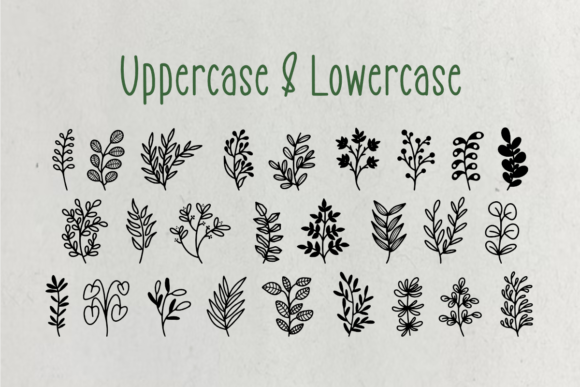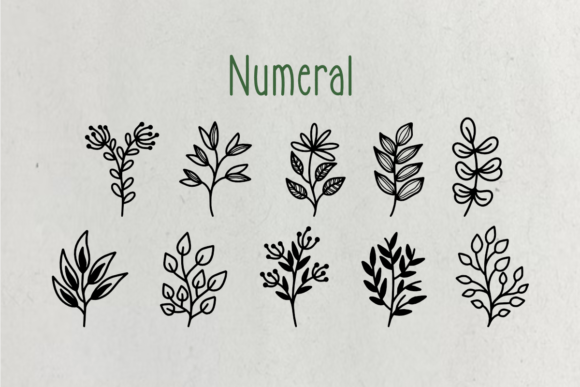
NATURENA FONT SPECIMEN
Naturena is a stunning and versatile botanical sketch dingbats font that will bring the beauty of nature to your creative projects. With its collection of intricate botanical illustrations, this font is perfect for adding a touch of elegance and natural charm to a wide range of designs.
When it comes to social media posts, Naturena can elevate your visuals and make them more eye-catching. Use the botanical illustrations as decorative elements, borders, or focal points in your posts. Whether you’re sharing gardening tips, promoting natural products, or simply want to create a nature-inspired aesthetic, Naturena will add a unique and captivating element to your social media designs.
For covers and books, Naturena will create a visually appealing and inviting look. Incorporate the botanical illustrations into your cover designs or use them as decorative elements throughout your book. From botanical journals to nature-themed novels, Naturena will bring a touch of natural beauty to your covers and books, enticing readers to explore your content.
Invitations and business cards featuring Naturena will make a lasting impression. Use the botanical illustrations to create elegant and stylish designs that reflect the theme or purpose of your event or business. Whether you’re hosting a garden party, launching a natural skincare brand, or promoting an eco-friendly initiative, Naturena will add a touch of sophistication and nature-inspired flair to your invitations and business cards.
When it comes to cards and printing, Naturena will make your designs truly special. Whether you’re creating greeting cards, postcards, or personalized stationery, the botanical illustrations can add a sense of natural beauty and refinement to your cards. Use them as borders, accents, or central motifs to create unique and memorable cards for any occasion. Additionally, Naturena can enhance your printing projects, such as art prints or wall decor, by adding an elegant touch of nature-inspired artwork.
Mugs featuring Naturena designs will bring a touch of tranquility to your morning routine or make thoughtful gifts for nature lovers. Use the botanical illustrations to create intricate and detailed designs that wrap around the mugs, transforming them into beautiful pieces of functional art.
Naturena is also perfect for DIY projects, allowing you to incorporate the botanical illustrations into various crafts. From scrapbooking and journaling to handmade cards and home decor, Naturena can enhance your DIY creations and bring a touch of natural beauty to your projects.
In summary, Naturena is a unique and beautiful botanical sketch dingbats font that can enhance a wide range of creative projects. Use it in your social media posts, covers, books, invitations, business cards, cards, printing, mugs, DIY projects, and more to bring the beauty of nature to your designs. Embrace the elegance and natural charm of Naturena and let it elevate your creative ideas to new heights!